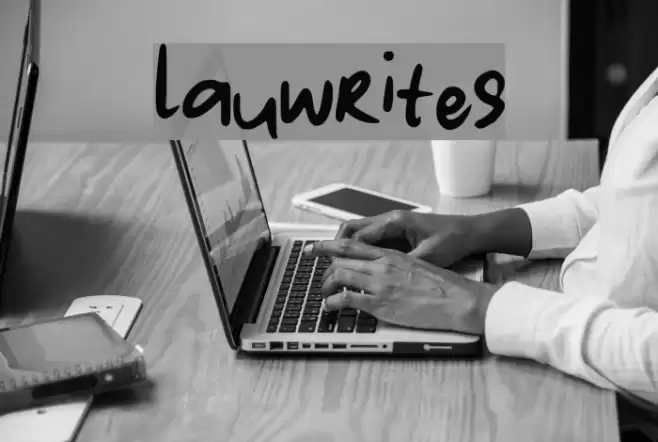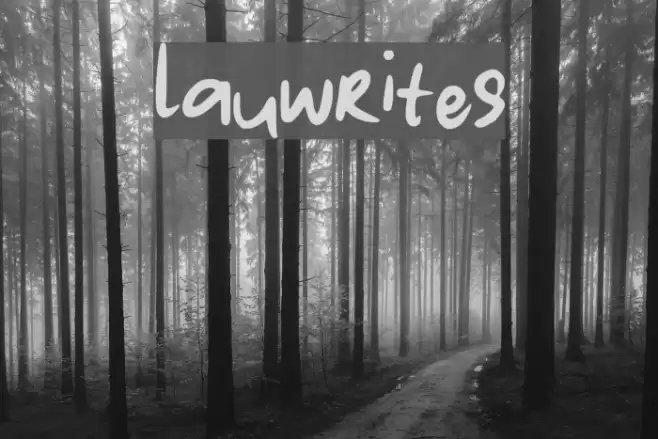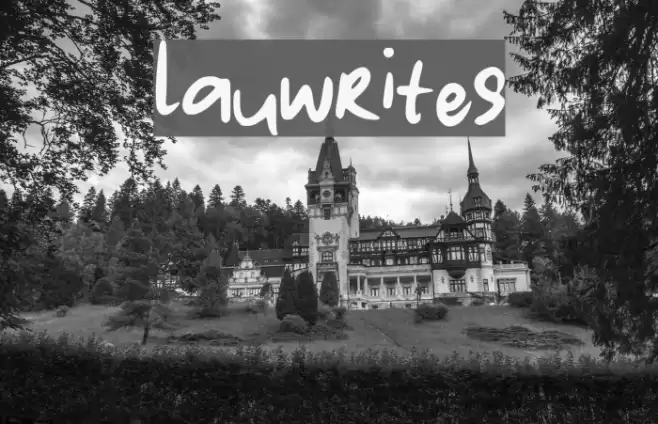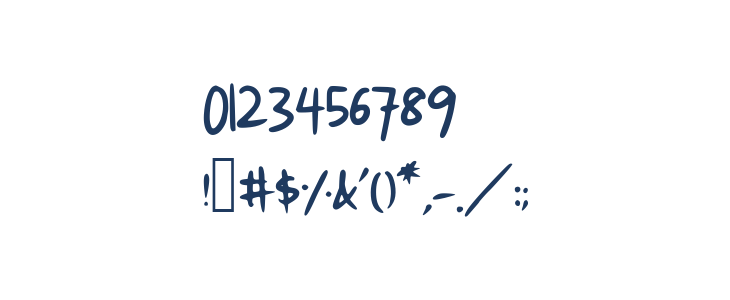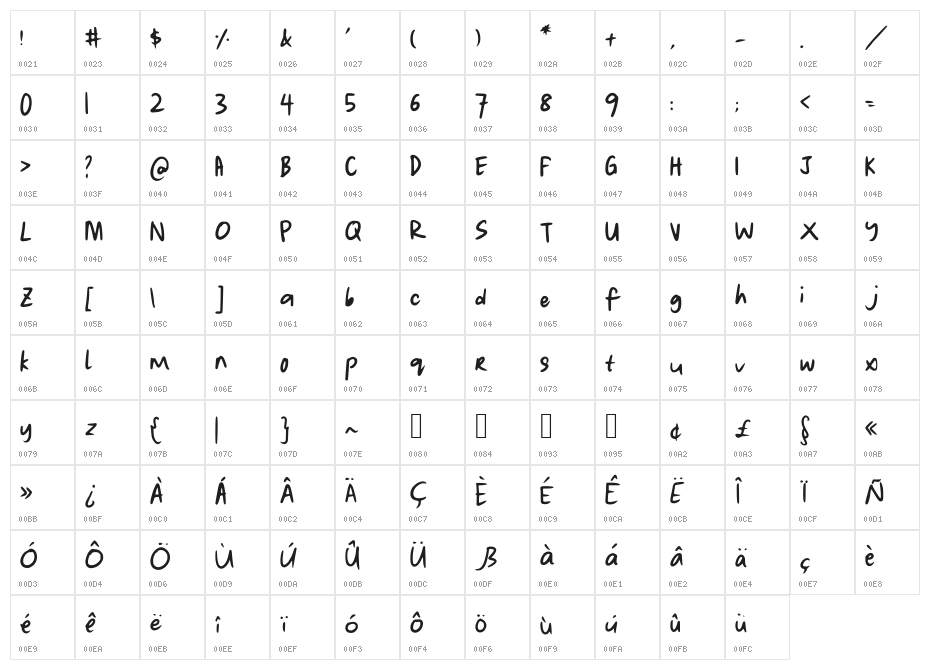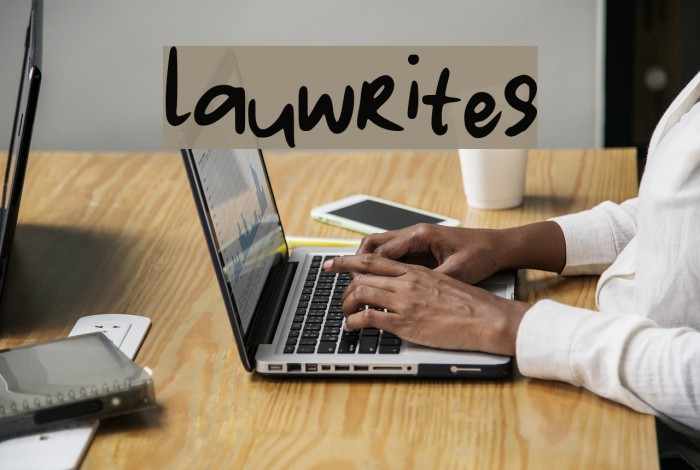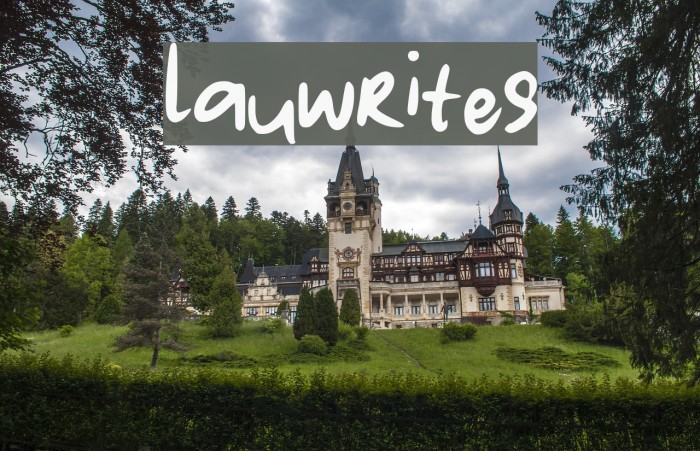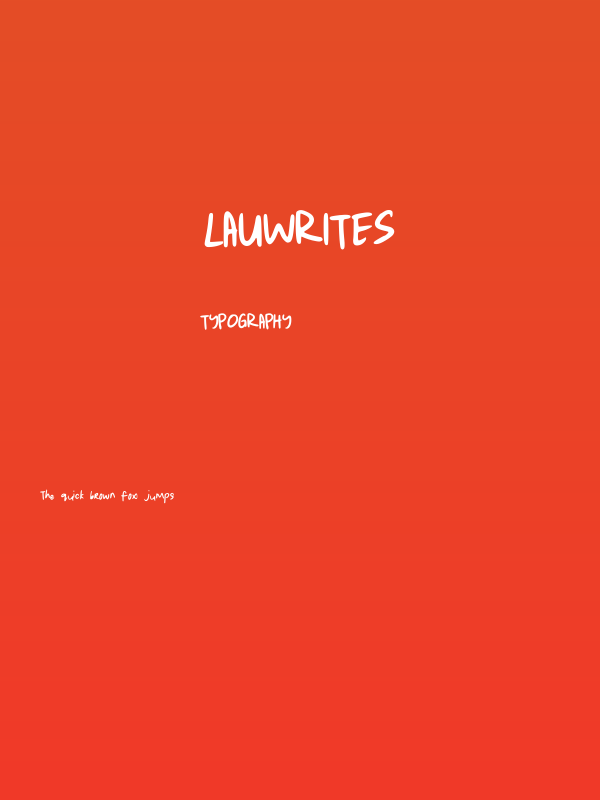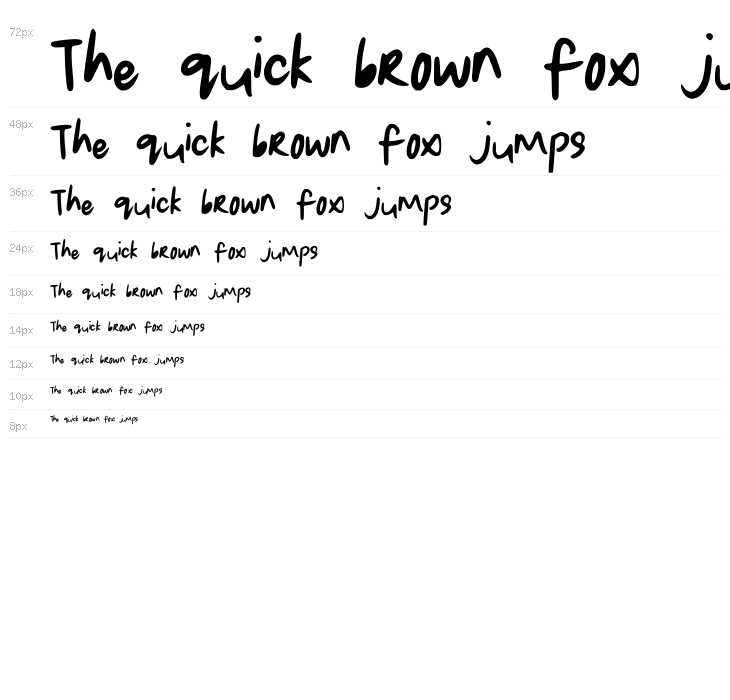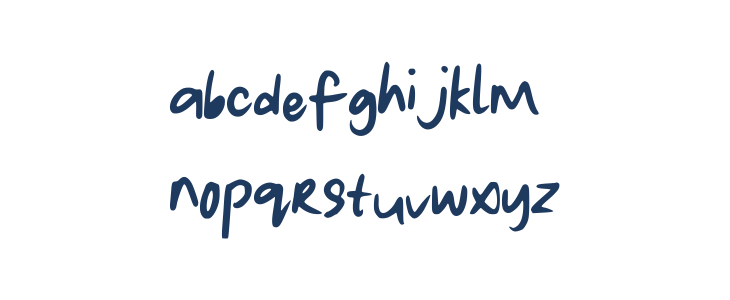
lauwrites Font
lauwrites Description
This font exudes a playful and informal vibe, characterized by its handwritten style. The letters are slightly uneven, mimicking the natural flow of handwriting, which adds a personal touch to any design. The strokes are bold and rounded, giving it a friendly and approachable appearance. The uppercase and lowercase letters maintain a consistent style, with the lowercase letters being slightly more compact. The numerals are clear and legible, matching the overall aesthetic. Special characters are included, maintaining the same playful style. This font is perfect for projects that require a casual and inviting feel.
A playful, handwritten font with bold, rounded strokes from Handwritten fonts.
- Proposed Projects: Ideal for greeting cards, children's books, casual branding, and social media graphics.
- Overall Style: Casual
- Use Case: Logos, Headlines, Informal text